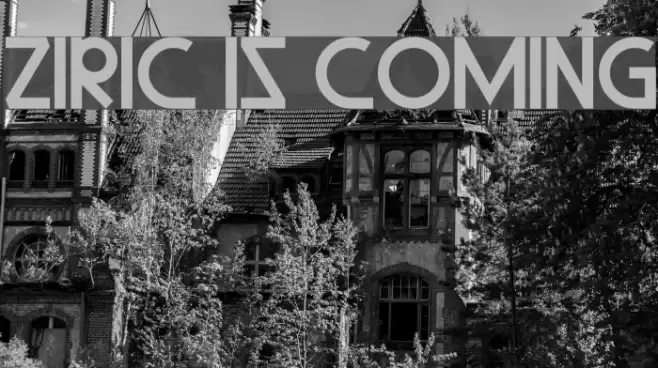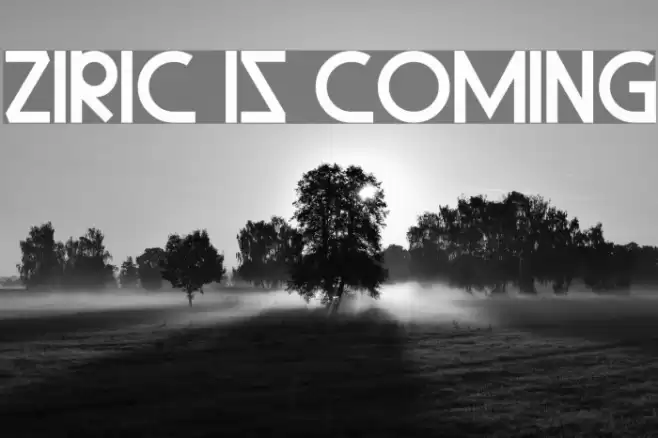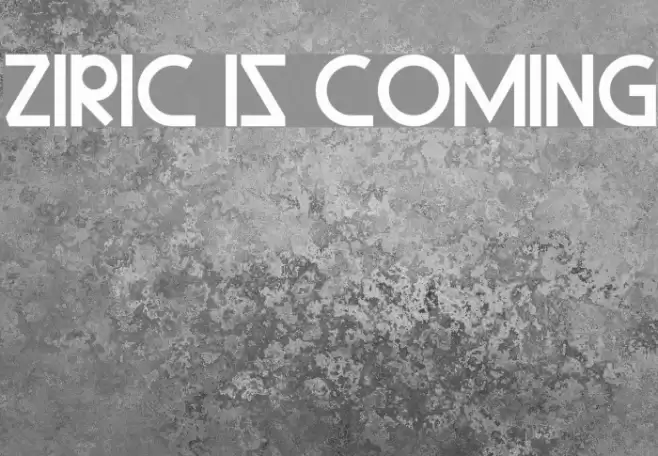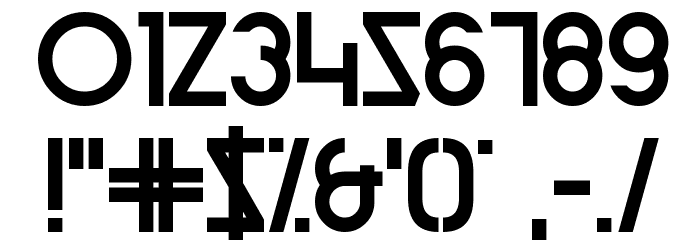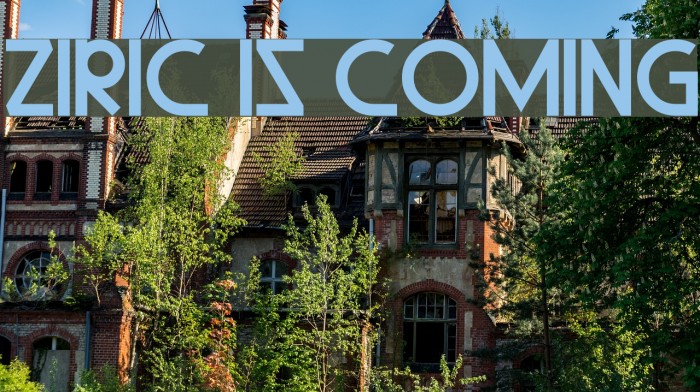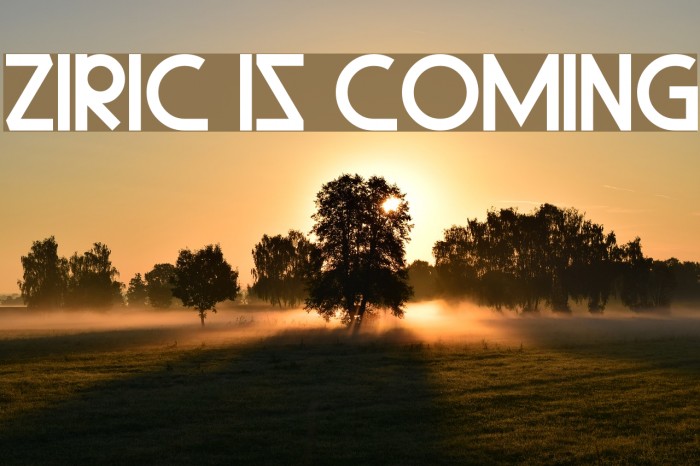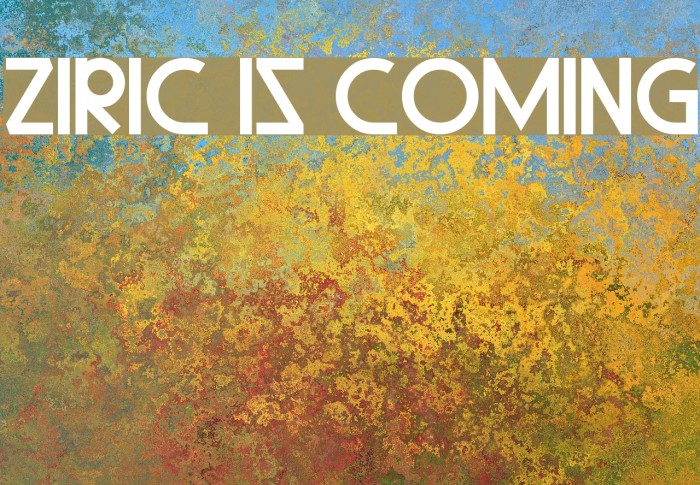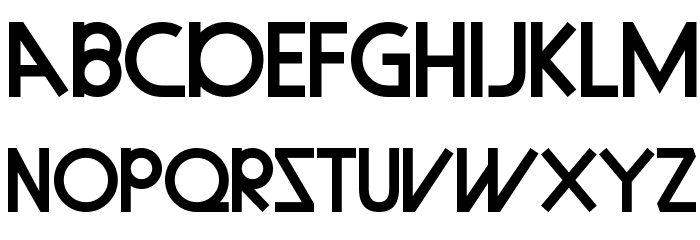
Ziric Is Coming Font
Ziric Is Coming Description
This font features a bold and geometric design with a modern aesthetic. The characters are constructed with clean lines and sharp angles, creating a futuristic and dynamic appearance. The uppercase letters exhibit a unique blend of straight and curved elements, giving them a distinctive look. The numerals and special characters maintain the same geometric style, ensuring consistency across the typeface. This font's strong visual presence makes it suitable for impactful designs.
A bold, geometric font with a modern and futuristic style from Uncategorized fonts.
- Proposed Projects: Ideal for branding, posters, headlines, and any project requiring a strong visual impact.